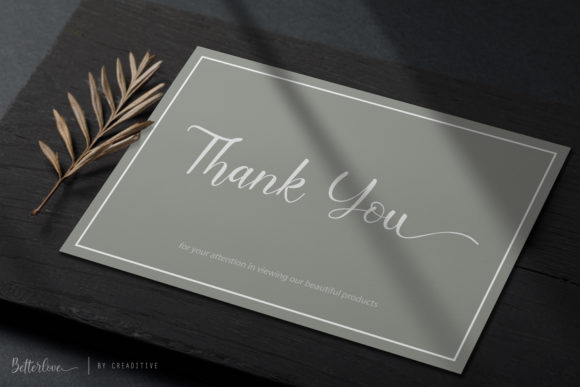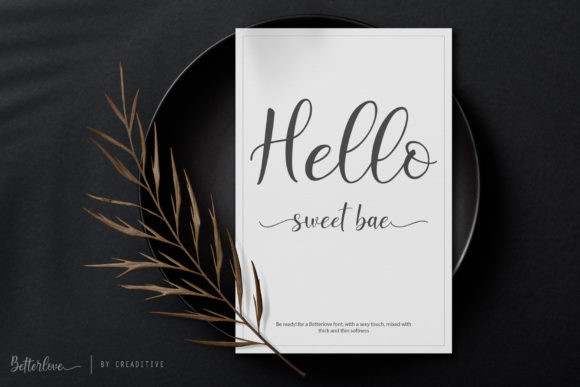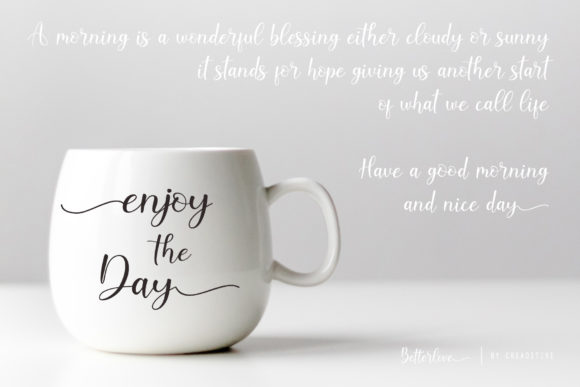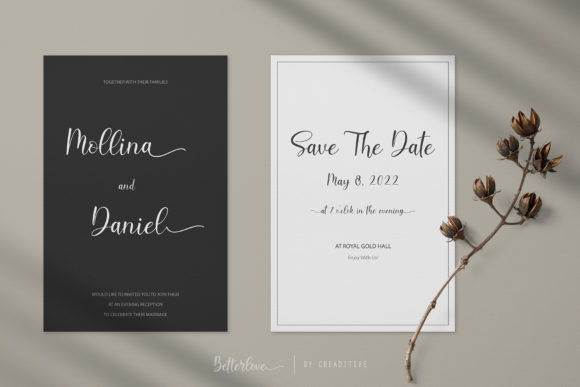
About Betterlove Font
Betterlove is an exquisite handwritten font, masterfully designed to become a true favorite. It looks stunning on wedding invitations, cards, headings, books, quotes, greeting cards, logos, business cards and every other design which requires a romantic touch. This font is PUA encoded which means you can access all of the glyphs and swashes with ease!